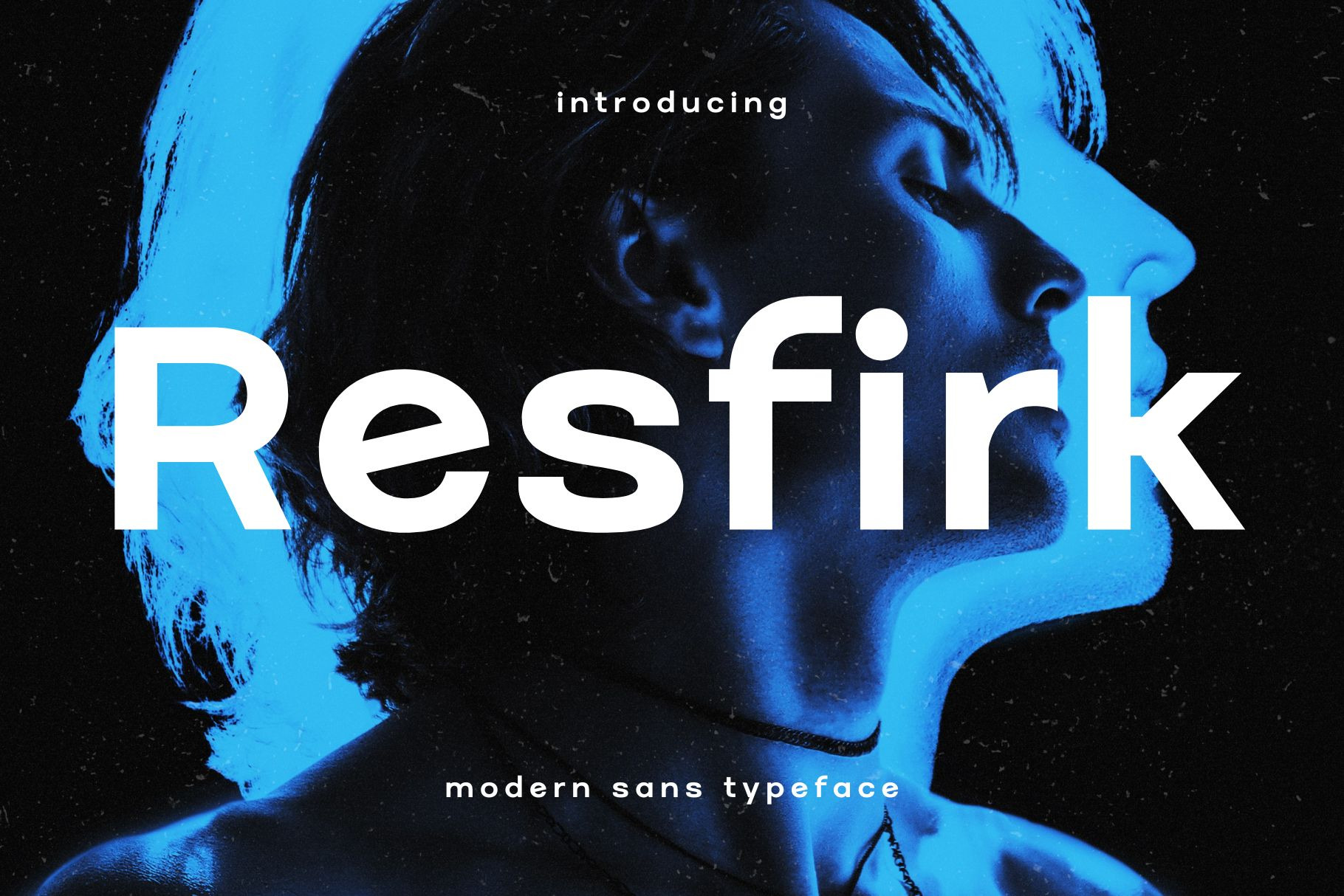
Resfirk - Modern Sans Typeface
Introducing 'Resfirk' Font:
Discover "Resfirk" – a sleek sans serif font that encapsulates simplicity and sophistication. Featuring clean lines and a contemporary aesthetic, Resfirk proves to be versatile for a diverse array of design applications. Whether you're developing sleek branding, minimalist layouts, or professional presentations, this font bestows a crisp and polished look upon your typography. Elevate your designs with the timeless and refined touch of Resfirk, achieving a perfect blend of clarity and modernity.
Ideal for:
- Web Design Projects
- Advertising Campaigns
- Visual Identity Projects
- Social Media Designs
- Personal Branding
- Ready for Creative Expression
- Immaculately Crafted Letters